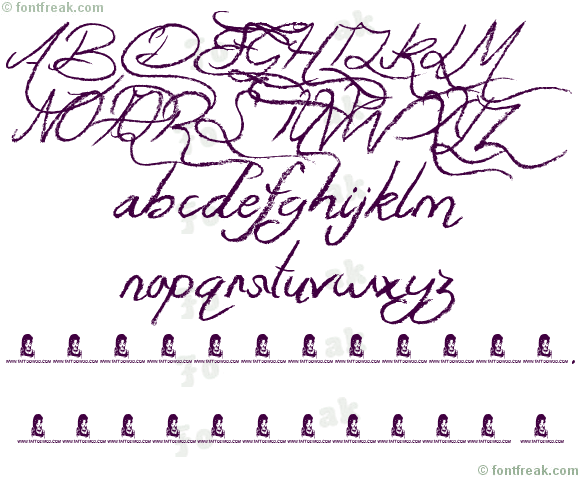
Get Richer
About Get Richer
The "Get Richer" font by Jonathan S. Harris is a striking handwritten script that exudes elegance and charm. This decorative typeface features flowing curves and a casual yet refined style, making it ideal for various creative projects. The strokes are slightly varied in weight, providing a sense of dynamism and liveliness that captures attention. The visual contrast between thick and thin lines enhances its artistic appeal, while the generous spacing between letters lends an airy feel to the overall design.
This font is perfect for a range of applications, including wedding invitations that seek to convey romance and sophistication, movie posters where a personal touch is desired, and restaurant menus aiming to create an inviting atmosphere. Additionally, it can be employed for branding materials, such as logos and business cards, where a unique identity is essential. Content creators and graphic designers will find the "Get Richer" font particularly useful for projects that require a touch of personality and flair.
Targeting graphic designers, small business owners, and content creators, this font allows for creative expression while maintaining professionalism. It is a versatile choice that can enhance various visual projects, making it a valuable resource in any designer's toolkit.
What truly sets the "Get Richer" font apart is its ability to blend casual elegance with artistic freedom. It stands out not only for its aesthetic qualities but also for its potential to elevate any design project. Whether you are looking to create something memorable for a special occasion or a unique brand identity, the "Get Richer" font free download is an excellent choice for those seeking to infuse their work with a distinct personality.